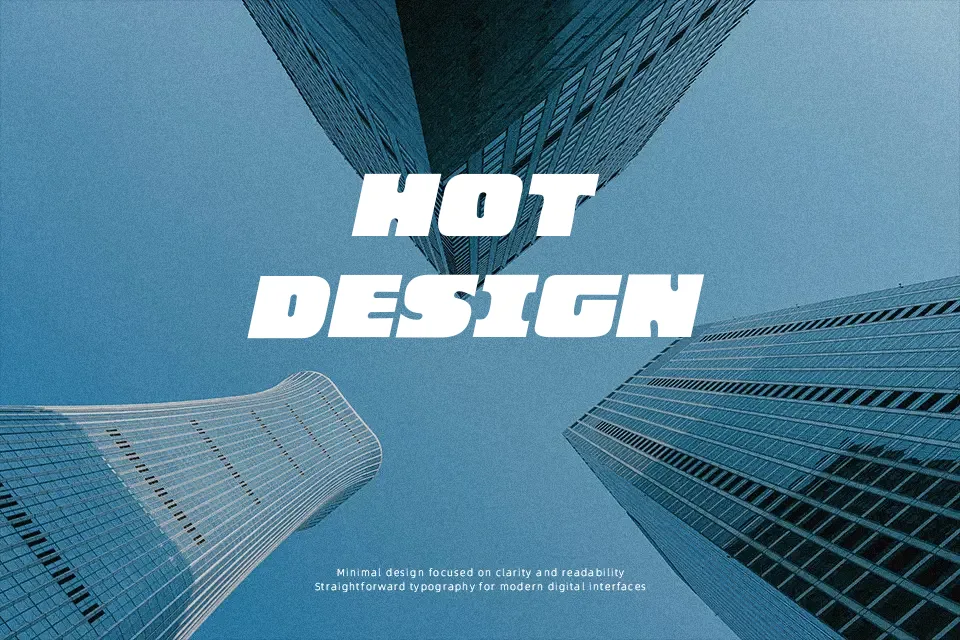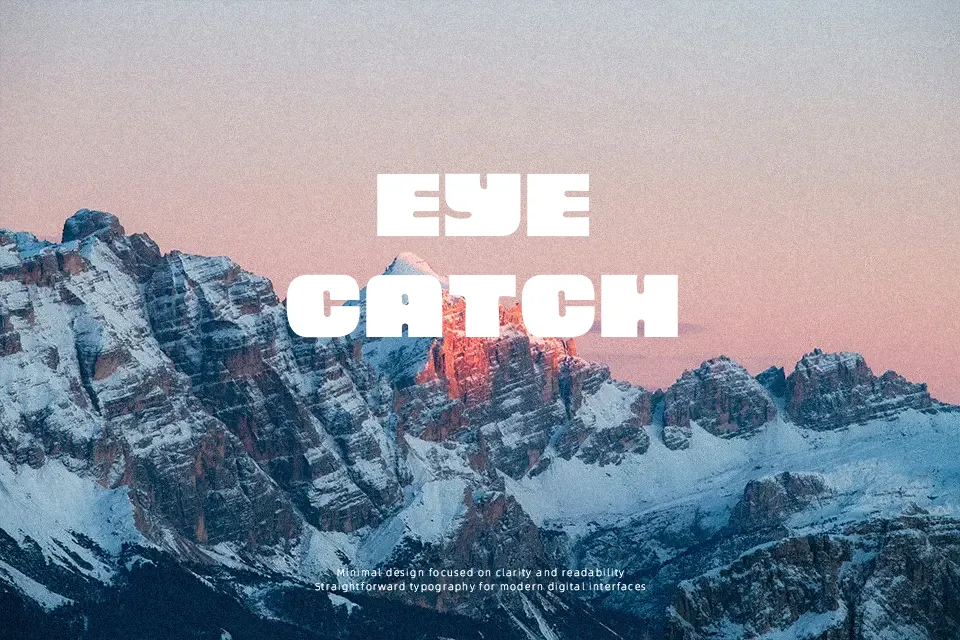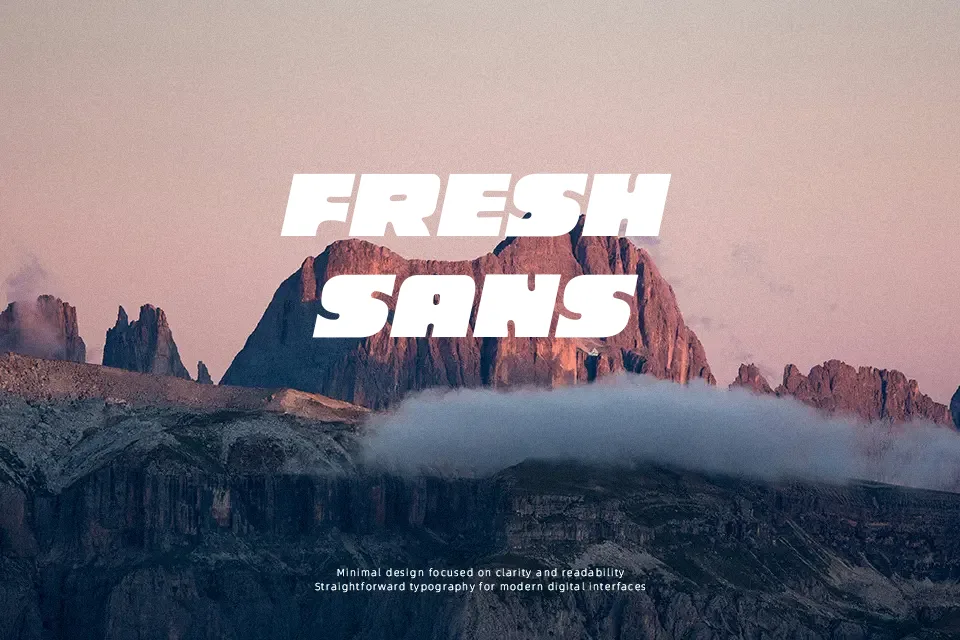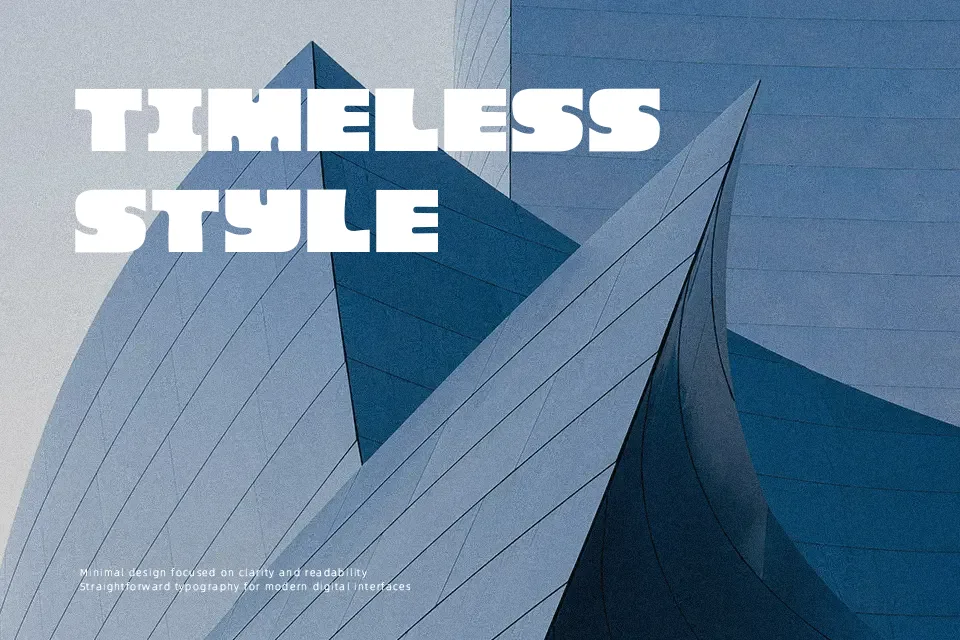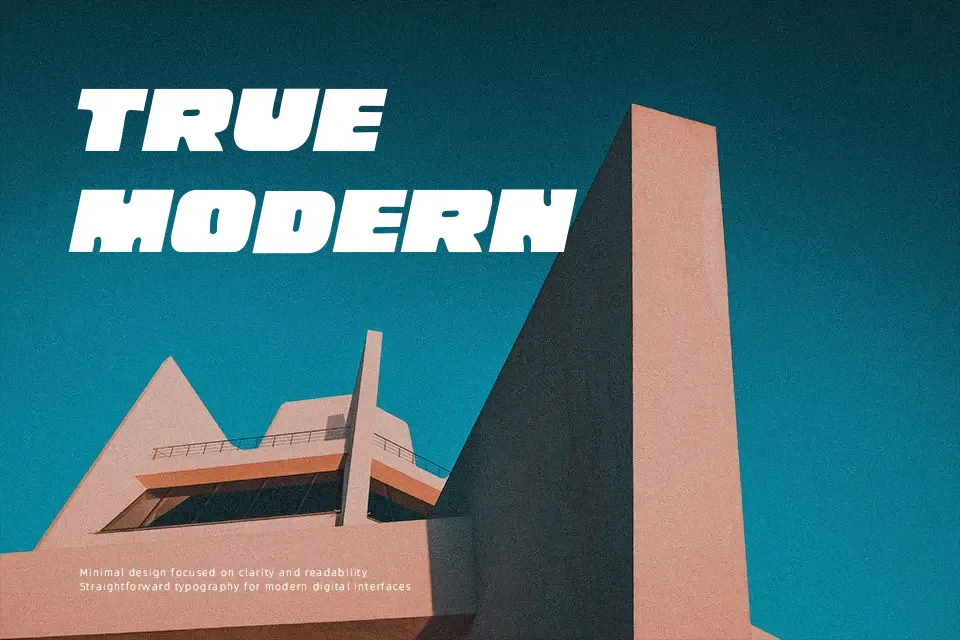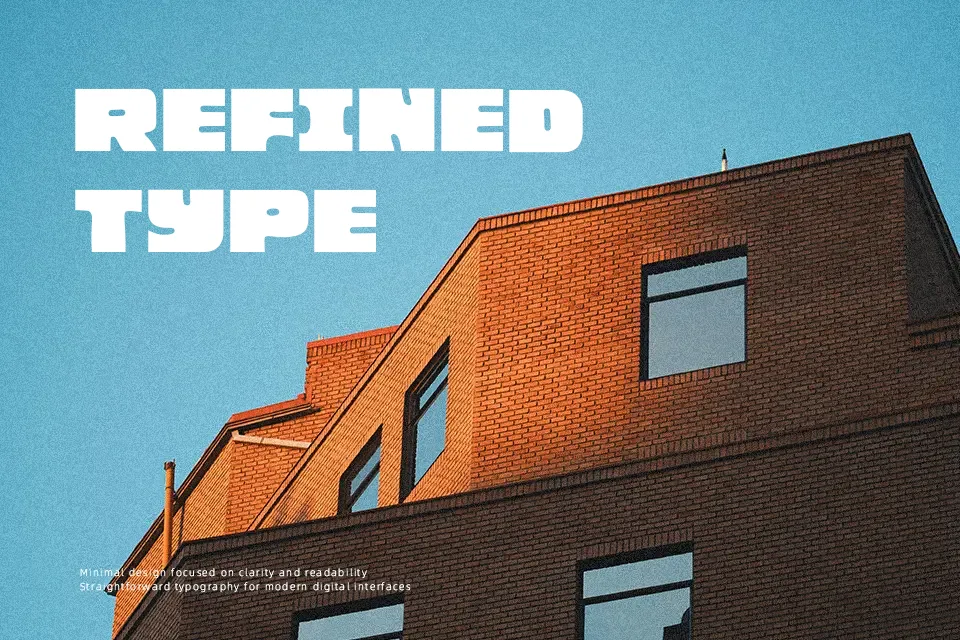
Barya Lang Po Sa Umaga Font
Designed by EyeCone
The strokes hit heavy and wide — this is a font that doesn’t whisper. Barya Lang Po Sa Umaga channels the hand-lettered chaos and charm of Philippine jeepney signboards, delivering chunky ExtraBold letterforms with visible personality and cultural texture. The italic variant adds a forward-leaning momentum that works well in motion graphics or promotional headers. Where it earns its keep: cultural campaigns, street food branding, Filipino heritage events, and anywhere urban energy is the point. The limitation worth noting — at small sizes or in dense body copy, the decorative weight becomes noise rather than style. Single-weight availability also means you can’t scale it into a full typographic system. Think of it as a headline tool, not a workhorse.
Best For:- Filipino cultural event posters and signage
– Street food stall or market branding headers
– Heritage-themed social media graphics
– Music album or band promotion with OPM/urban themes
Not Ideal For:- Body text or long-form editorial layouts
– Corporate or professional document design
– Multilingual typesetting beyond Latin characters
– Minimalist or luxury brand identities
Perfect for branding, headline, and music, with a bold and decorative style.